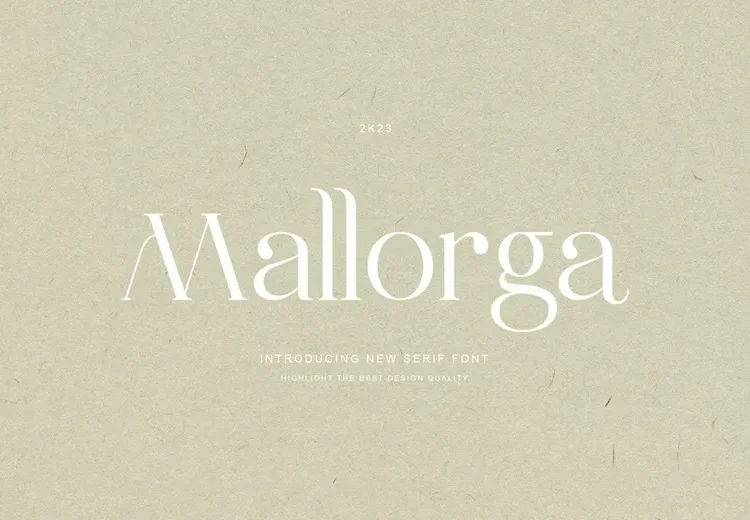
Mallorga Font
Mallorga is a sophisticated serif font that blends modern aesthetics with timeless elegance. Designed to bring a polished and professional look to your projects, this font is perfect for wedding invitations, logos, and posters. Its refined structure and versatile design make it an excellent choice for creating standout visuals in both digital and print formats.
Whether you’re designing websites, covers, or textiles, Mallorga adapts beautifully to various mediums. Its clean lines and subtle enhancements add a touch of modernity while maintaining a classic feel, making it suitable for billboards, branding materials, and other creative endeavors.
Perfect for professional and personal projects alike, Mallorga ensures your designs leave a lasting impression. Its blend of simplicity and sophistication allows it to complement a wide range of styles and themes effortlessly.